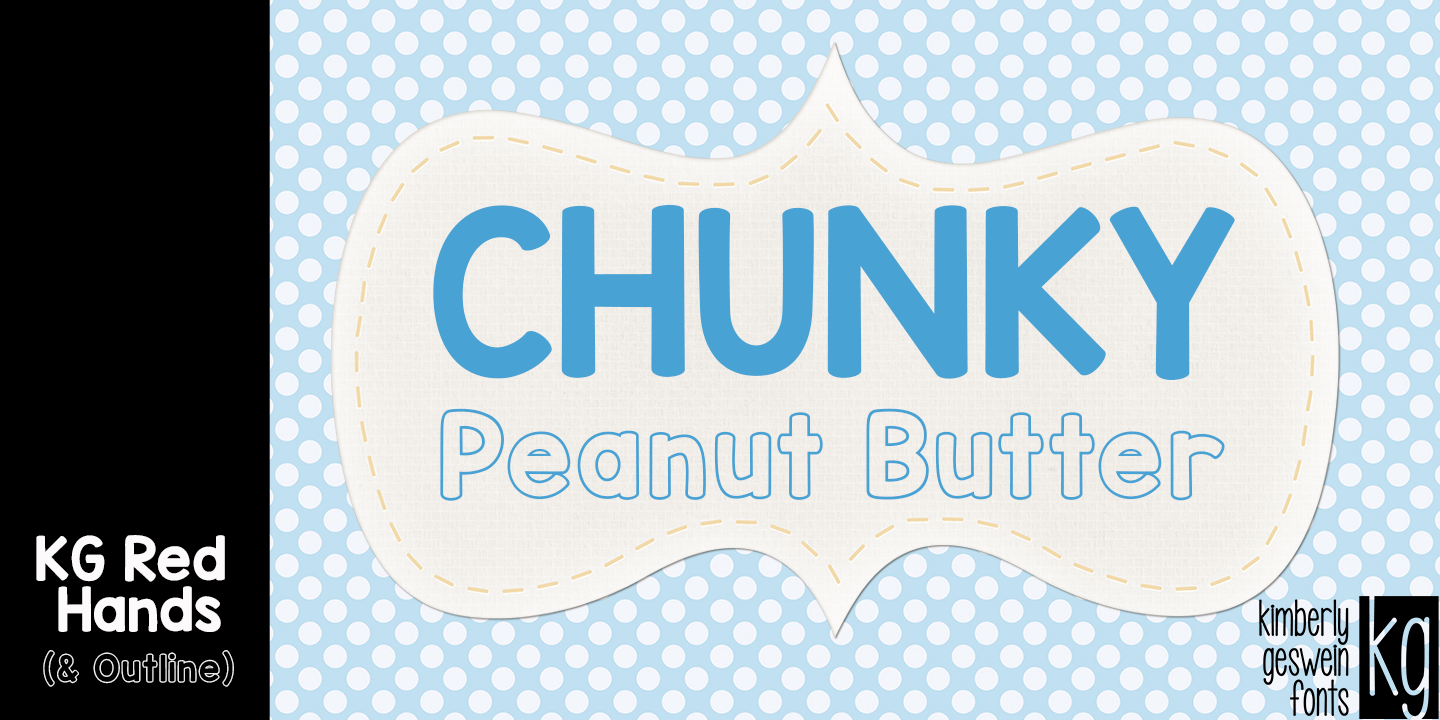
KG Red Hands Font Free Download is a playful and bold sans-serif typeface designed by Kimberly Geswein. Its chunky, rounded letterforms make it ideal for projects that require a fun and approachable aesthetic, such as children's books, educational materials, posters, and branding aimed at a youthful audience.
The font family includes two styles: the solid "KG Red Hands" and the outlined "KG Red Hands Outline," offering versatility for various design applications. Both styles maintain excellent legibility, making them suitable for both print and digital mediums.
Incorporate KG Red Hands Font Free Download into your design projects to add a touch of fun and boldness. Its unique style will help your work stand out and make a lasting impression.